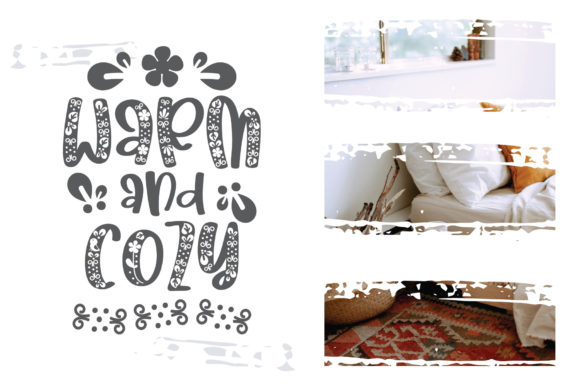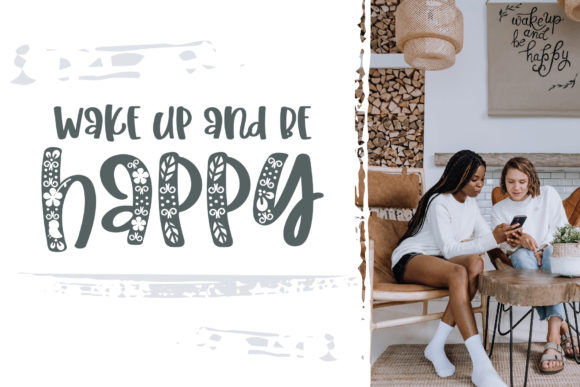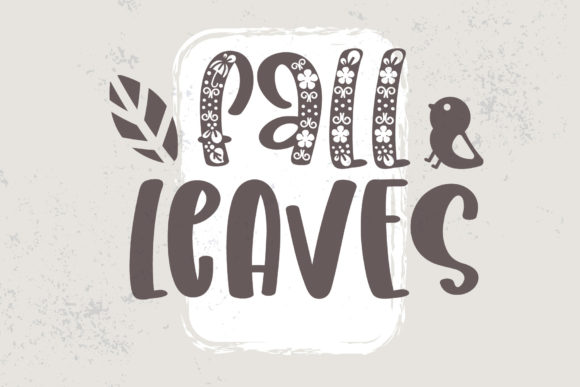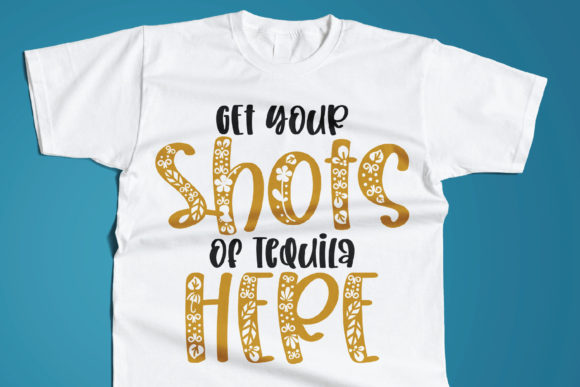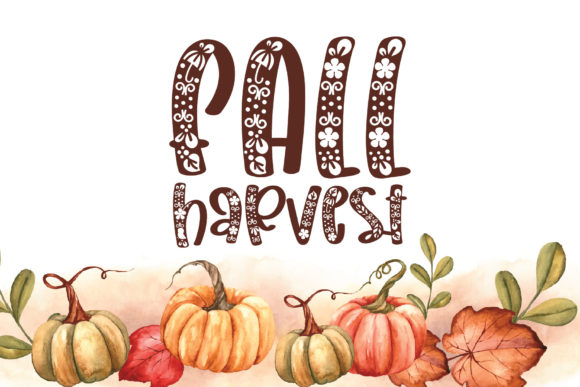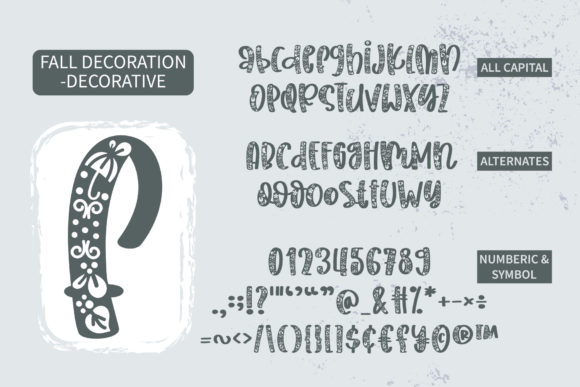
Elevate Your Fall Crafts with the Perfect Font: Fall Decoration
As the leaves change colors and the air grows crisp, designers and crafters alike begin to think about how to infuse their projects with the warmth and coziness of the fall season. One of the most effective ways to add a touch of autumnal charm to your crafts is with the right font. Introducing Fall Decoration, a versatile and stylish font duo that’s specifically designed to bring a chic and cheery vibe to your fall creations.
What is Fall Decoration Font?
Fall Decoration is a carefully crafted font set that consists of two complementary fonts: a display font and a decorative font. These fonts are designed to work together seamlessly, allowing you to mix and match them to create a wide range of visual effects. Whether you’re working on a DIY project, a craft tutorial, or a professional design, Fall Decoration is the perfect choice for adding a touch of fall flair.
Key Features of Fall Decoration Font
- Two-font design: The display font is perfect for headlines and titles, while the decorative font adds a playful touch to your text.
- Chic and cheery: The font’s design is both stylish and upbeat, making it perfect for fall crafts that require a touch of warmth and personality.
- Versatile: Use Fall Decoration for a wide range of projects, from paper crafting and scrapbooking to digital design and social media graphics.
Why Choose Fall Decoration Font?
With so many fonts available, why choose Fall Decoration for your fall crafts? Here are just a few reasons:
- High-quality design: The font is carefully crafted to ensure that it looks great in a variety of sizes and applications.
- Unique and stylish: Fall Decoration offers a fresh and modern take on traditional fall fonts, making it perfect for designers and crafters who want to stand out from the crowd.
How to Use Fall Decoration Font in Your Crafts
Fall Decoration is a versatile font that can be used in a wide range of crafts and projects. Here are a few ideas to get you started:
- Paper crafting: Use Fall Decoration to add a touch of fall charm to your card making, scrapbooking, and other paper crafts.
- Digital design: Add Fall Decoration to your digital design toolkit and use it to create eye-catching social media graphics, blog posts, and more.
Tips and Tricks for Getting the Most Out of Fall Decoration
To help you get the most out of Fall Decoration, here are a few tips and tricks:
- Experiment with different font combinations: Try pairing Fall Decoration with other fonts to create unique and interesting visual effects.
- Play with color: Fall Decoration looks great in a range of autumnal colors, from warm reds and oranges to rich browns and yellows.